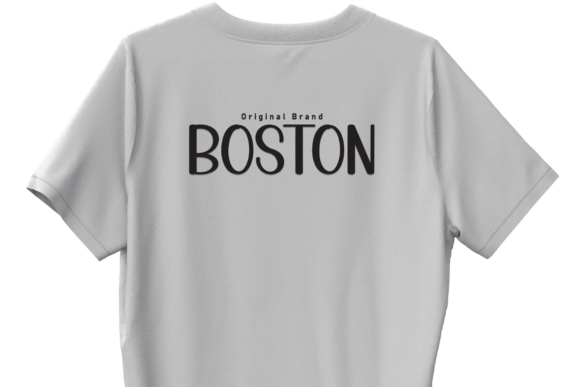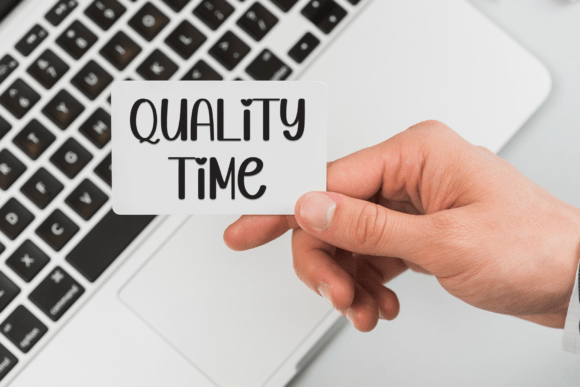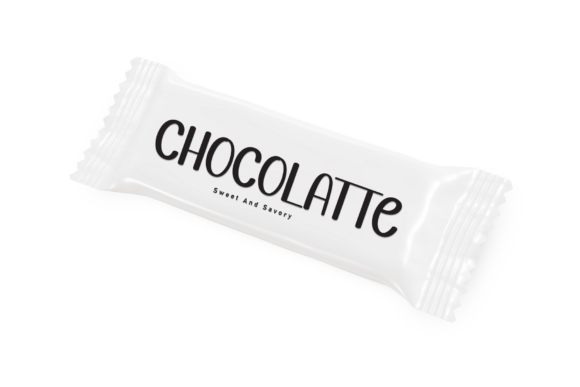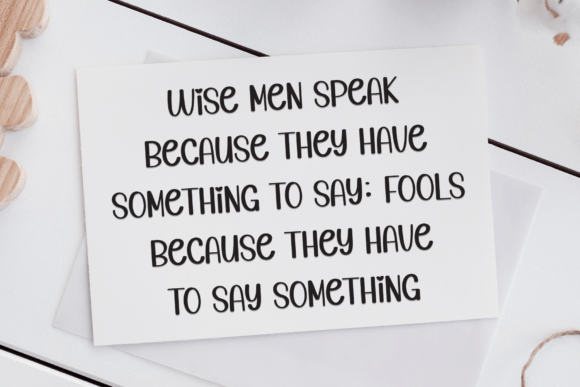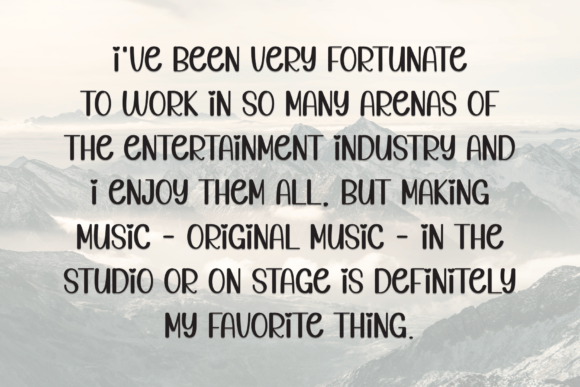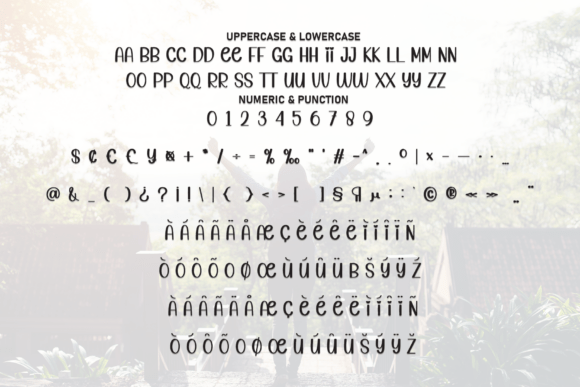
Introducing Happy Sunday Font: Elevate Your Designs with Whimsical Charm
Are you tired of using the same old fonts in your designs? Do you want to add a touch of magic and whimsy to your creations? Look no further than Happy Sunday Font, a captivating handwritten display font that is sure to infuse vibrant life into any artistic venture. With its affable and appealing characteristics, this font is perfect for designers and crafters looking to add a sprinkle of excitement to their projects.
A Font that Glows with Brilliance and Comforting Charm
Happy Sunday Font is a unique and eye-catching font that exudes warmth and friendliness. Its handwritten style gives it a personal and approachable feel, making it perfect for projects that require a touch of personality. Whether you’re designing wedding invitations, greeting cards, or any other type of creative project, this font is sure to make it stand out from the crowd.
Seamlessly Weaving an Entrancing Atmosphere
One of the key benefits of Happy Sunday Font is its ability to seamlessly weave an entrancing atmosphere into any project. Its playful and imaginative characteristics make it perfect for creating designs that are both visually stunning and engaging. Whether you’re looking to create a sense of wonder or simply want to add a touch of whimsy to your designs, this font is sure to deliver.
Happy Sunday Font is a versatile font that can be used for a wide range of projects. Its elegant and sophisticated style makes it perfect for:
- Wedding invitations and ceremony cards
- Blog headers and titles
Transforming Your Endeavors into Fascinating Works of Art
With Happy Sunday Font, you can transform your designs into fascinating works of art that are sure to capture the attention of your audience. Its unique and playful characteristics make it perfect for adding a touch of excitement and energy to your projects. Whether you’re a designer, crafter, or simply a DIY enthusiast, this font is sure to inspire you to create something truly special.
Key Features of Happy Sunday Font
So what sets Happy Sunday Font apart from other fonts? Here are just a few of its key features:
- Handwritten display font with a personal and approachable feel
- Affable and appealing characteristics that add a touch of warmth and friendliness to your designs
- Perfect for projects that require a touch of whimsy and excitement
- Seamlessly weaves an entrancing atmosphere into any project
- Versatile and can be used for a wide range of projects
In conclusion, Happy Sunday Font is a captivating handwritten display font that is sure to elevate your designs to the next level. With its unique and playful characteristics, it’s perfect for adding a touch of whimsy and excitement to any project. Whether you’re a designer, crafter, or simply a DIY enthusiast, this font is sure to inspire you to create something truly special. So why wait? Download Happy Sunday Font today and start creating your own fascinating works of art!
Get Ready to Immerse Yourself in a Realm of Fanciful Allure
With Happy Sunday Font, you can immerse yourself in a realm of fanciful allure, where creativity and imagination know no bounds. Whether you’re looking to create a sense of wonder or simply want to add a touch of magic to your designs, this font is sure to deliver. So why wait? Join the world of Happy Sunday Font today and start creating your own enchanting designs!